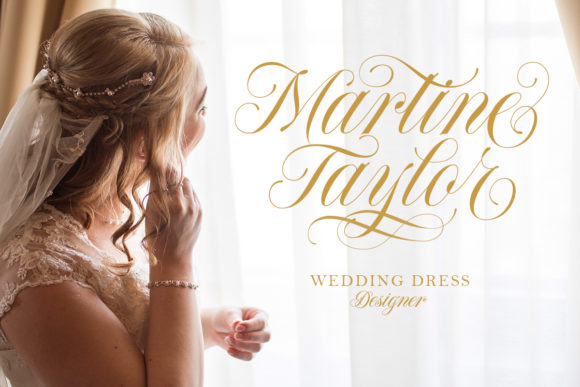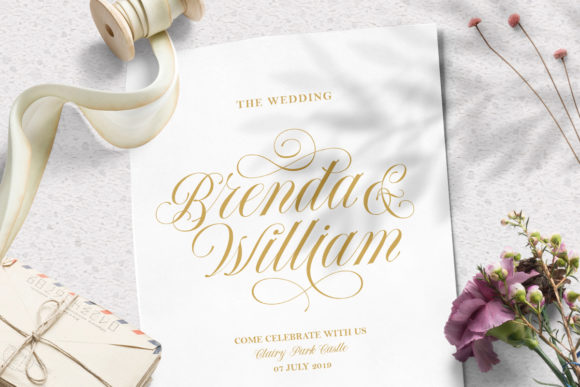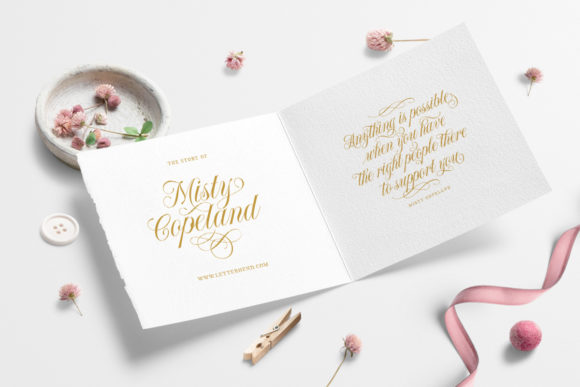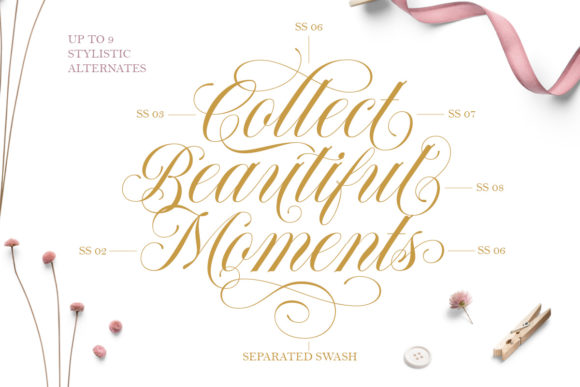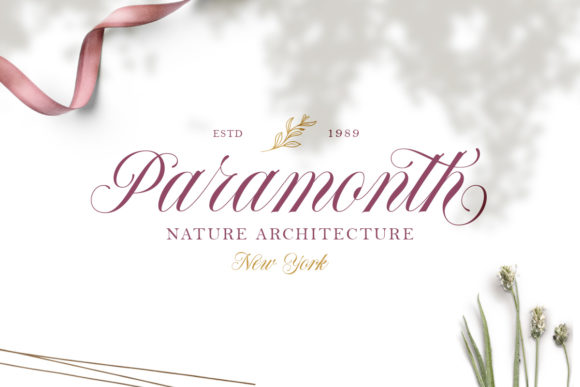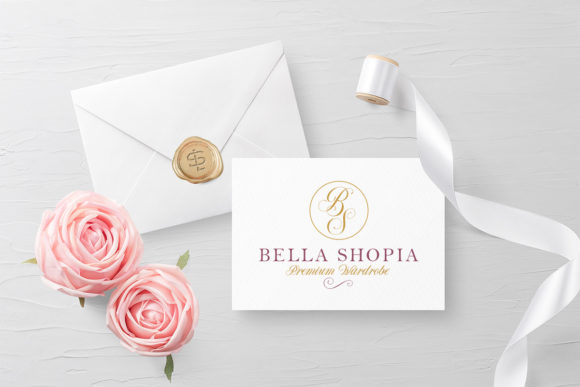
Forth Smith Font: A Timeless Tribute to Classic Calligraphy
In the world of typography, few fonts capture the essence of classic calligraphy as beautifully as Forth Smith. This exquisite font pays homage to the art of traditional calligraphy, boasting incredibly elegant swashes and heartfelt alternates that are sure to captivate designers and crafters alike. With its romantic appeal and versatility, Forth Smith is an excellent addition to any design project.
The Inspiration Behind Forth Smith
Forth Smith’s design is rooted in the rich history of calligraphy, a art form that has been perfected over centuries. The font’s creator drew inspiration from classic calligraphic styles, infusing Forth Smith with a sense of elegance and sophistication. The result is a font that exudes refinement and poise, making it perfect for designs that require a touch of luxury.
Elegant Swashes and Heartfelt Alternates
One of the standout features of Forth Smith is its beautiful swashes and alternates. These elegant flourishes add a touch of whimsy and romance to any design, making it perfect for wedding invitations, greeting cards, and other projects that require a personal touch. The font’s alternates offer a range of options for customizing your text, allowing you to create unique and eye-catching designs.
Romantic Appeal
Forth Smith’s romantic appeal is undeniable. Its classic, cursive lines and delicate swashes evoke a sense of nostalgia and sentimentality, making it perfect for designs that require a touch of warmth and personality. Whether you’re creating a wedding invitation, a love letter, or a heartfelt greeting card, Forth Smith is the perfect font to convey your emotions.
Versatility and Pairing Options
Forth Smith is an incredibly versatile font that can be used in a variety of design projects. Its elegant lines and classic style make it perfect for:
• Greeting cards and gift tags
• Logos and branding materials
• Signage and display text
• Packaging and product labels
When it comes to pairing Forth Smith with other fonts, the options are endless. For a classic look, pair it with a simple serif font like Times New Roman or Garamond. For a more modern take, try pairing it with a clean sans-serif font like Open Sans or Lato.
Design Tips and Tricks
To get the most out of Forth Smith, here are a few design tips and tricks to keep in mind:
• Use Forth Smith as a display font to add a touch of elegance to your design.
• Experiment with different swashes and alternates to create unique and eye-catching designs.
• Pair Forth Smith with images or illustrations that feature classic, elegant lines.
• Use Forth Smith to add a personal touch to your designs, such as in wedding invitations or greeting cards.
Forth Smith is a timeless tribute to classic calligraphy that is sure to captivate designers and crafters alike. With its elegant swashes, heartfelt alternates, and romantic appeal, this font is perfect for designs that require a touch of luxury and sophistication. Whether you’re creating a wedding invitation, a greeting card, or a logo, Forth Smith is an excellent choice. So why not fall in love with Forth Smith and add it to your design arsenal today?